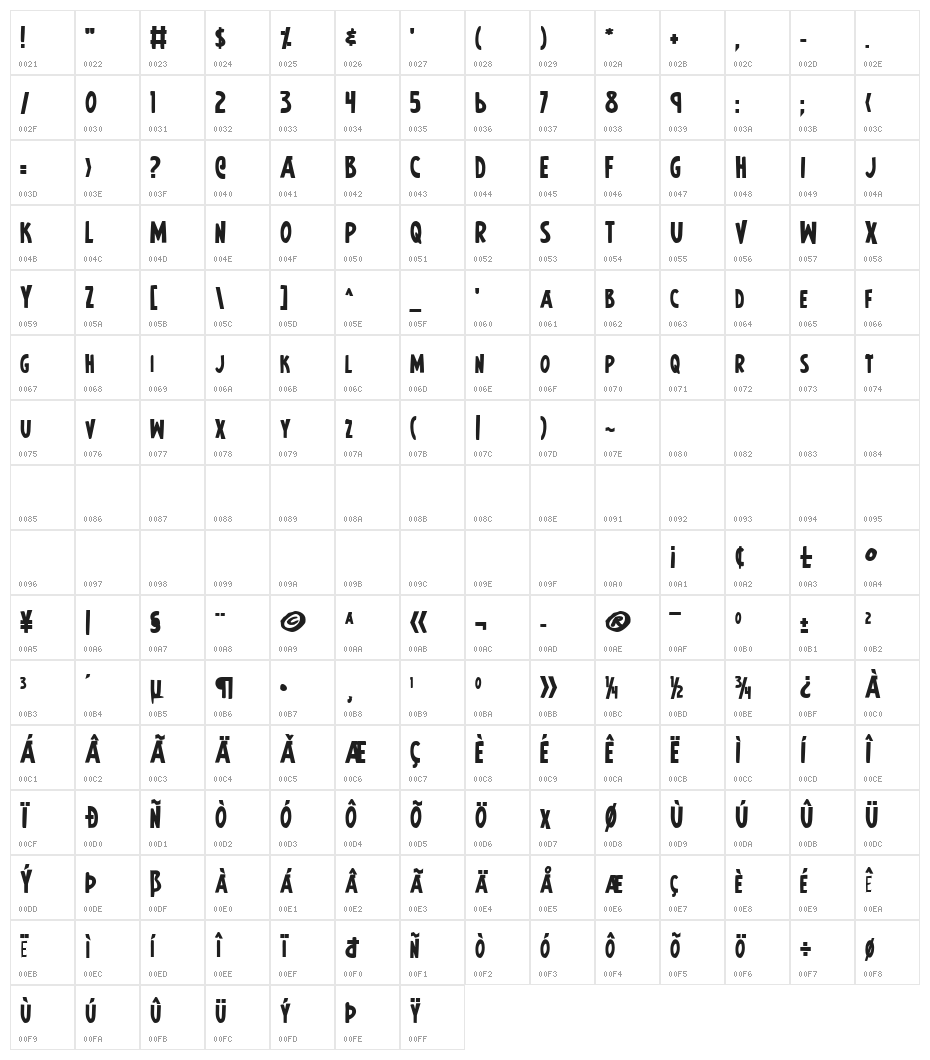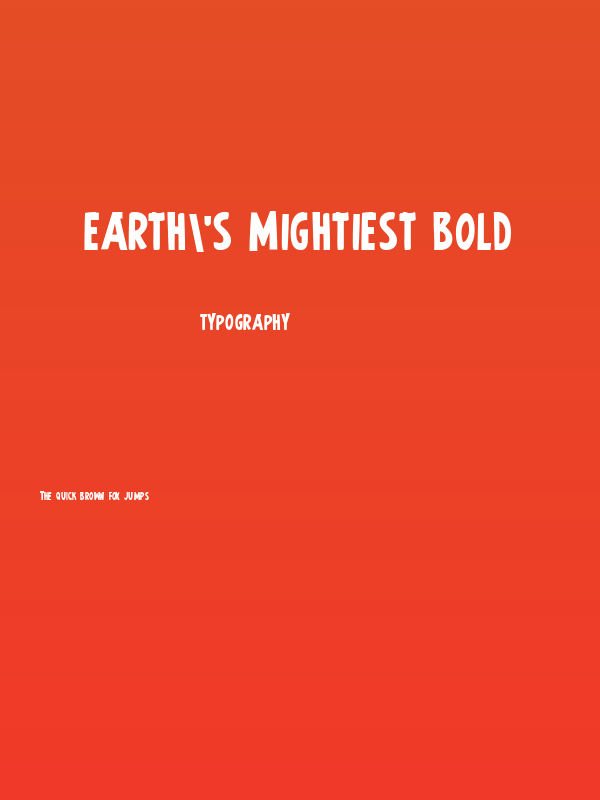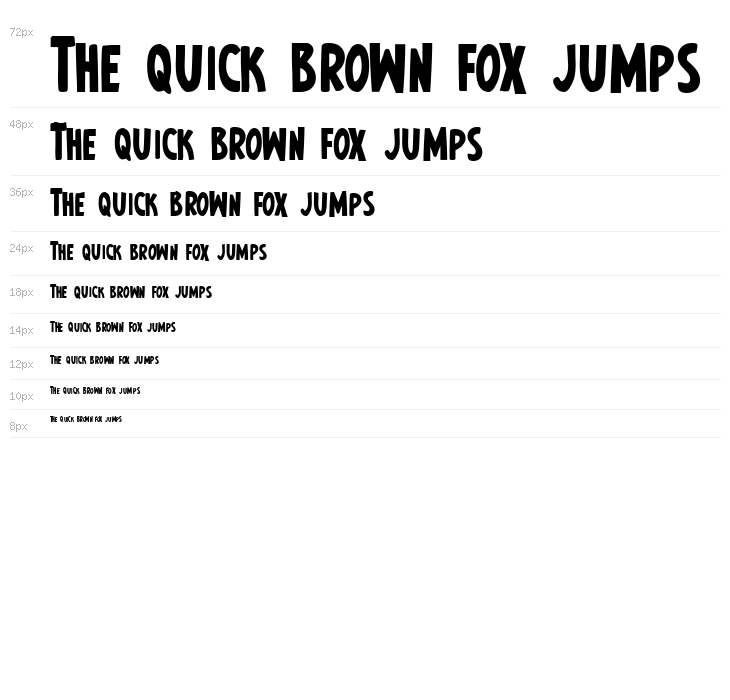
Earth's Mightiest Bold Font
Earth's Mightiest Bold Description
This bold, impactful font features thick, sturdy lines and a strong presence, making it ideal for attention-grabbing headlines and titles. The characters are uniformly bold with a slightly condensed width, giving them a compact yet powerful appearance. The uppercase letters are particularly striking, with a consistent height and width that ensures readability even at smaller sizes. The numbers and special characters maintain the same boldness, ensuring a cohesive look across all text elements. This font's style is both modern and assertive, suitable for projects that require a commanding visual impact.
| Proposed Projects | Perfect for posters, banners, logos, and any design needing a bold statement. |